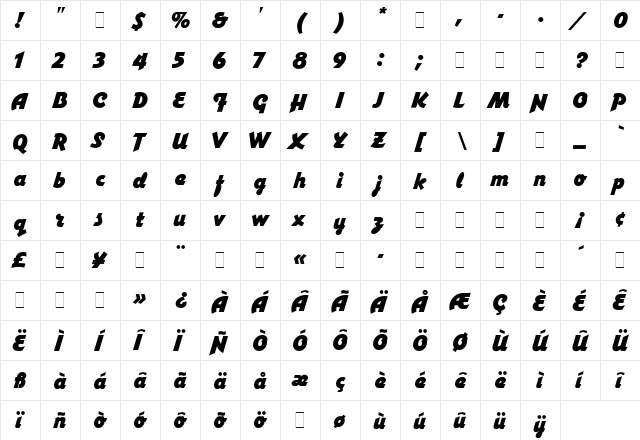
Varga Regular Font Preview
Varga Regular
Design Context for Varga Typeface
Varga is a composed and adaptable typeface that performs quietly and consistently across a wide range of design contexts.